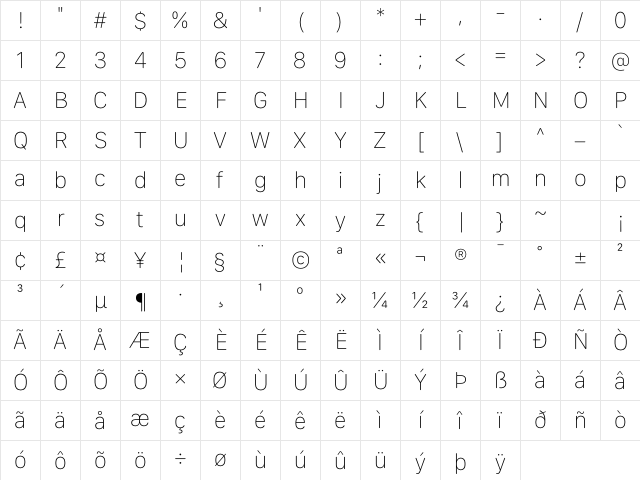
SF Compact Rounded Ultralight
Style: Ultralight
Foundry: Apple Inc.
Designer: Apple Inc.
Complete SF Compact Rounded Ultralight glyph index. Displaying only characters natively supported by SF Compact Rounded Ultralight font.
Design Context for SF Compact Rounded
SF Compact Rounded softens its letterforms with rounded terminals, giving it an approachable, friendly quality that works well in consumer-facing and digital contexts. Its slender proportions lend an understated elegance to any composition.
Font Pairing: Pairs well with a rounded or humanist sans for body copy, maintaining the friendly tone without relying on SF Compact Rounded to carry extended reading.
Pro Tip: Use SF Compact Rounded for UI elements, app interfaces, and anywhere a friendly, approachable tone needs to be maintained without sacrificing clarity.
Who designed the SF Compact Rounded Ultralight font?